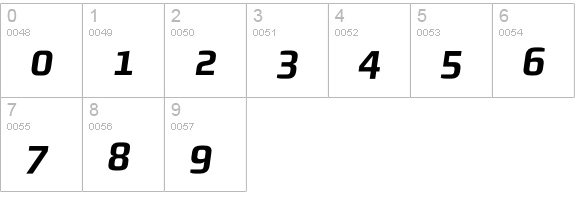
MorganSnOffice Bold Oblique Font Details
MorganSnOffice Bold Oblique is a strong, high-contrast, italic variant in the MorganSnOffice typeface family \xE2\x80\x94 well suited to headlines, attention-grabbing titles, and strong calls-to-action.
Introducing MorganSnOffice Bold Oblique font, a dynamic and modern typeface designed to make a bold statement. Its sleek and stylish appearance is perfect for adding a touch of sophistication to any project. The slanted italic design adds a unique flair to your text, making it stand out with a sense of elegance and professionalism. This versatile font is ideal for a wide range of applications, from branding and advertising to editorial design and web content. Its strong and confident presence will ensure your message is delivered with impact and clarity. And the best part? MorganSnOffice Bold Oblique font is available for free download at FontsMarket.com. Now you can elevate your projects with this stunning typeface without breaking the bank. Don't miss out on the opportunity to enhance your work with this exceptional font – download it today and let your creativity shine!